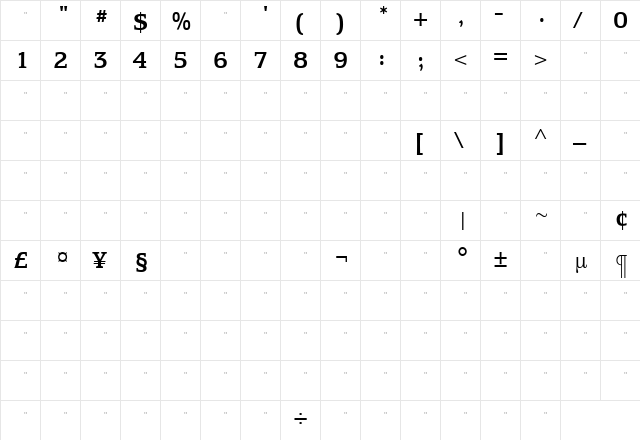
EquestrienneMediumTab Roman
Design Context for EquestrienneMediumTab Typeface
EquestrienneMediumTab is a composed and adaptable typeface that performs quietly and consistently across a wide range of design contexts.